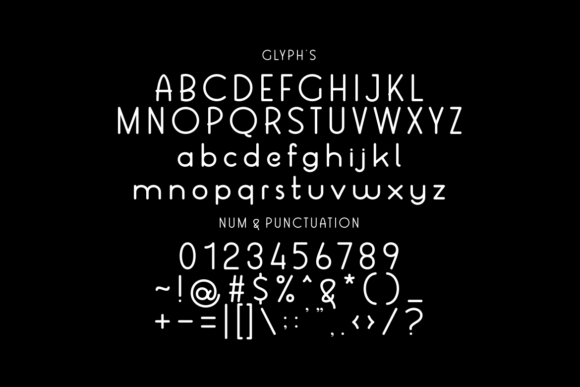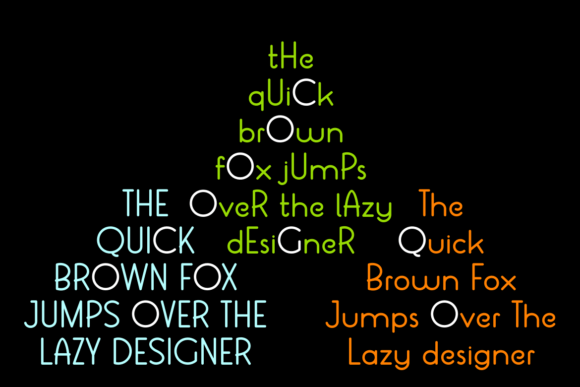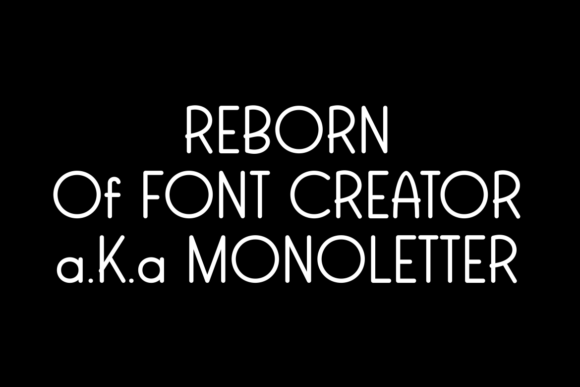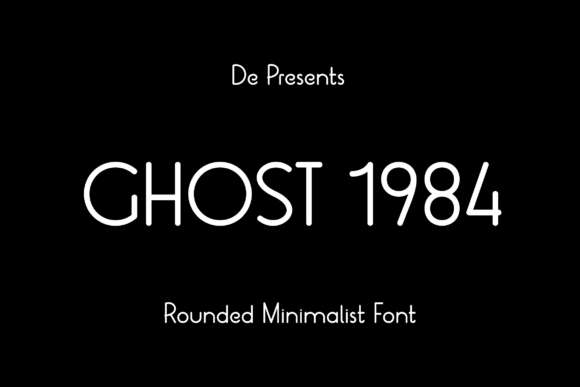
Unveiling the Elegance of Ghost 1984 Font: A Designer’s Delight
In the realm of typography, fonts play a pivotal role in conveying messages, evoking emotions, and enhancing the visual appeal of any design project. Among the myriad of fonts available, Ghost 1984 stands out for its unique blend of simplicity and aesthetic sophistication. This article aims to explore the features, versatility, and benefits of using Ghost 1984 in various design applications, making it an indispensable tool for designers and crafters alike.
The Essence of Ghost 1984 Font
Ghost 1984 is a thoughtfully crafted font that merges minimalist design with a distinct aesthetic charm. Its lightweight structure ensures that the message takes center stage, making it ideal for projects where clarity and readability are paramount. The font’s design is not just about being visually appealing; it’s also engineered to enhance the legibility of text, ensuring that the audience can effortlessly grasp the intended message.
One of the standout features of Ghost 1984 is its incredible versatility. This font is not confined to a specific use case; rather, it can elegantly adapt to a wide range of applications. Whether you’re working on product packaging, crafting compelling gift descriptions, or creating enticing advertisements for food products like biscuits or milk, Ghost 1984 proves to be an excellent choice. Its adaptability stems from its clean lines, balanced proportions, and a subtle elegance that complements various design themes and styles.
Enhancing Readability and Engagement
Readability is a critical factor in any design project, as it directly influences how effectively the message is communicated to the audience. Ghost 1984 excels in this aspect, offering a clear, crisp, and highly legible design. This clarity ensures that the viewer’s attention is captured, and the content is easily comprehensible, thereby enhancing the overall engagement and impact of the design.
Applications of Ghost 1984 Font
The potential applications of Ghost 1984 are vast and varied. Here are a few scenarios where this font can make a significant difference:
- Product Packaging: Elevate your brand’s packaging with a sophisticated and clean look that stands out on store shelves.
- Digital Content: Use Ghost 1984 in blog posts, social media updates, and website content to provide a uniform and professional appearance.
- Advertising: Whether it’s print or digital advertising, Ghost 1984 can help create visually appealing and effective ad campaigns.
- Branding: Incorporate Ghost 1984 into your brand’s identity to convey a sense of elegance, simplicity, and professionalism.
Why Choose Ghost 1984?
Choosing the right font for your design project can be a daunting task, given the plethora of options available. However, Ghost 1984 offers several compelling reasons to be your top pick:
- Unique Aesthetic: Offers a distinctive look that sets it apart from more commonly used fonts.
- High Readability: Ensures your message is conveyed clearly and effectively.
- Versatility: Suitable for a wide range of applications, from digital content to print materials.
Ghost 1984 is more than just a font; it’s a design tool that can elevate your creative projects to new heights. Its perfect blend of simplicity, aesthetic appeal, and readability makes it an excellent choice for designers and crafters looking to make a lasting impression. Whether you’re working on a small DIY project or a large-scale branding campaign, Ghost 1984 offers the finesse and versatility needed to achieve your design goals. Experience the elegance and effectiveness of Ghost 1984 and discover a new level of creativity and professionalism in your designs.